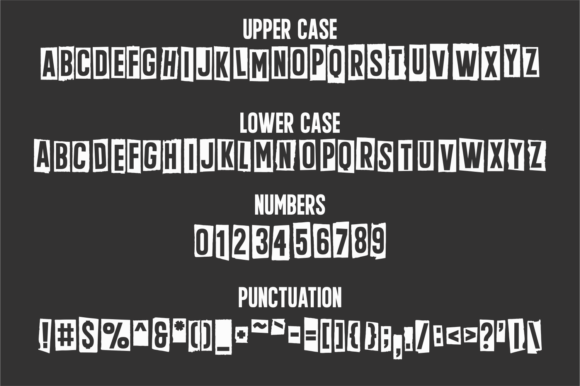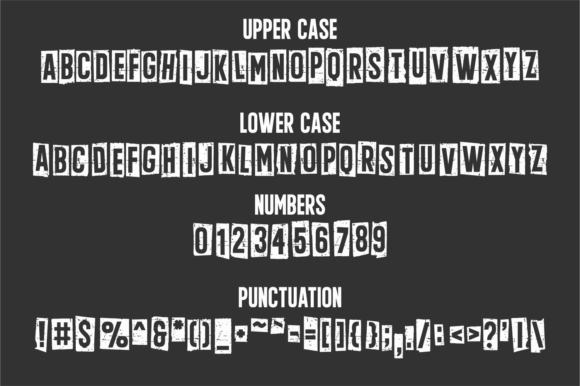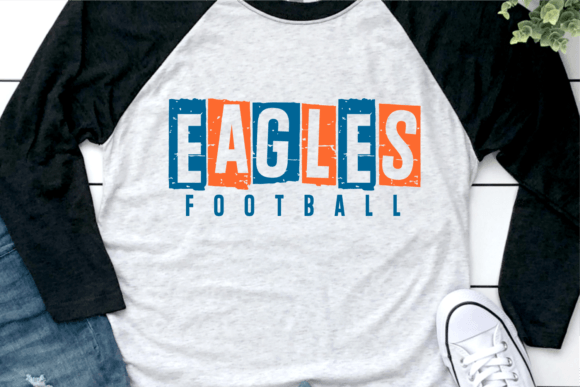
Halftime Font: Bold Display Typography for Eye-Catching Logos
About the Halftime Font
Discover the charm of Halftime Font. This font is a perfect blend of modern aesthetics and classic appeal. Halftime is a bold and impactful display font that features strong, blocky letterforms with sharp edges and corners. Its tall and narrow design makes it perfect for creating eye-catching headlines, titles, and logos. With a modern and industrial vibe, Halftime is a versatile font that can add a strong and masculine touch to any project.
Halftime excels in large-scale applications such as headlines, posters, and branding elements where its bold presence commands attention. It’s ideal for projects conveying power, strength, or a modern industrial aesthetic. Avoid using it for body text or UI elements; its condensed nature and strong weight hinder readability in smaller sizes or continuous text.
Consider pairing Halftime with a clean sans-serif like Open Sans for body copy to balance its boldness, or a more delicate script font like Great Vibes for a sophisticated contrast in branding materials. Geometric sans-serifs, such as Futura, also offer a complementary modern feel.
The font’s core personality is assertive and contemporary, making it a strong choice for brands targeting a masculine or technologically-focused audience. Projects involving sports, automotive, or industrial design would find Halftime particularly effective.
Halftime Font Usage Examples
Halftime Font Example